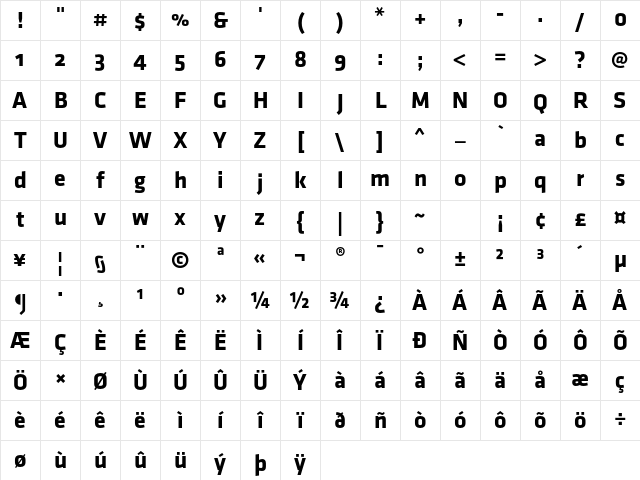
Klavika Bold Bold OSF
Style: Bold OSF
Foundry: Process Type Foundry
Complete Klavika Bold Bold OSF glyph index. Displaying only characters natively supported by Klavika Bold Bold OSF font.
Design Context for Klavika Bold
Klavika Bold is a composed and adaptable typeface that performs quietly and consistently across a wide range of design contexts. Its bold stroke weight gives it real presence on the page.
Who designed the Klavika Bold Bold OSF font?